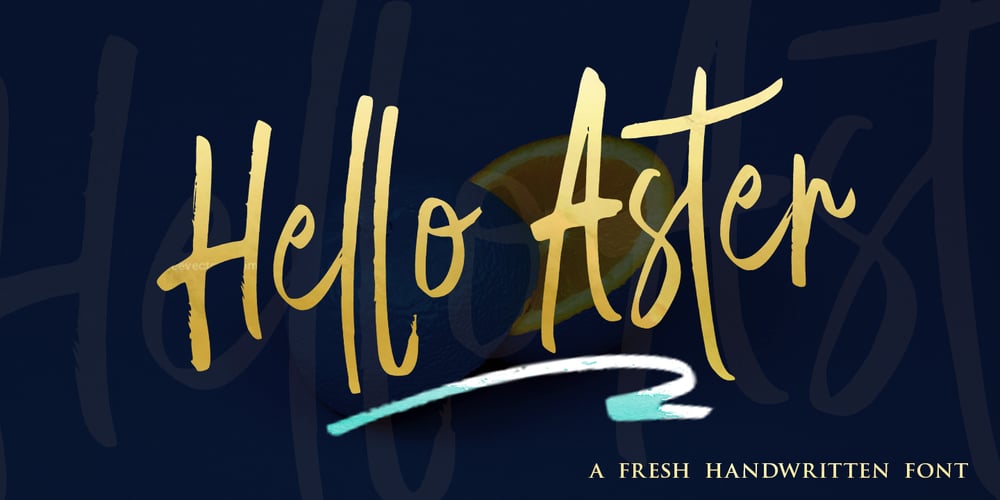
Hello Aster Font Family was designed by Zaki Muhammad and published by madjack.font. Hello Aster contains 2 styles and family package options. Hello Aster is a new font brushed textured script which is also equipped with additional swashes. It is perfect for brand projects, logos, product packaging, posters, invitations, greeting cards, news, blogs, or anything to feature a persona charm.